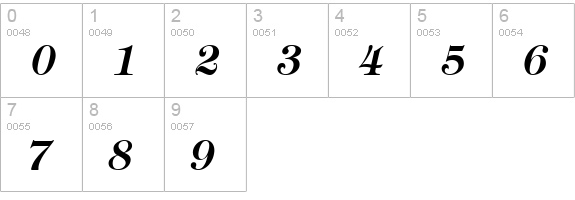
Timpani Bold Italic Font Details
Timpani Bold Italic is a strong, high-contrast, italic variant in the Timpani typeface family \xE2\x80\x94 well suited to headlines, attention-grabbing titles, and strong calls-to-action.
Introducing Timpani Bold Italic, a striking and expressive typeface that effortlessly combines boldness with elegance. This font is perfect for adding a touch of sophistication and flair to any design project, from branding to editorial layouts. With its unique blend of boldness and italics, Timpani Bold Italic commands attention and exudes confidence. Each letter is meticulously crafted, with clean lines and precise curves that make it a pleasure to read and work with. The bold weight adds a sense of strength and authority, while the italic style brings a touch of dynamism and grace. Timpani Bold Italic is not only visually stunning, but it also offers versatility in its usage. Whether you're designing a logo, creating a poster, or crafting a website, this font will effortlessly adapt to your creative vision. Its legibility remains intact even at smaller sizes, making it ideal for both print and digital applications. What makes Timpani Bold Italic even more impressive is that it is freely available to download at FontsMarket.com. Yes, you read that right - this font is completely free! Now, you can enhance your designs with a high-quality, professional-looking typeface without breaking the bank. So why wait? Download Timpani Bold Italic today and unleash your creativity with a font that will elevate your designs to new heights. Whether you're a seasoned designer or just starting out, this font is sure to become a valuable addition to your typographic arsenal. Get ready to make a bold statement with Timpani Bold Italic.